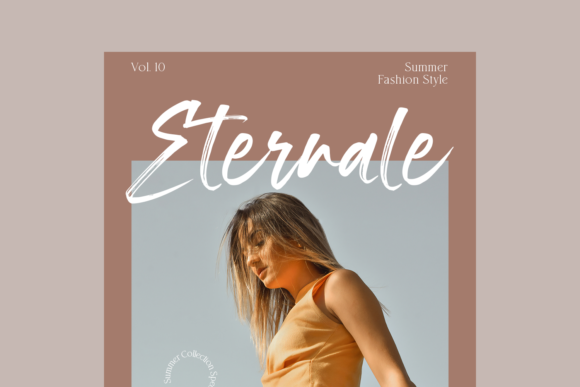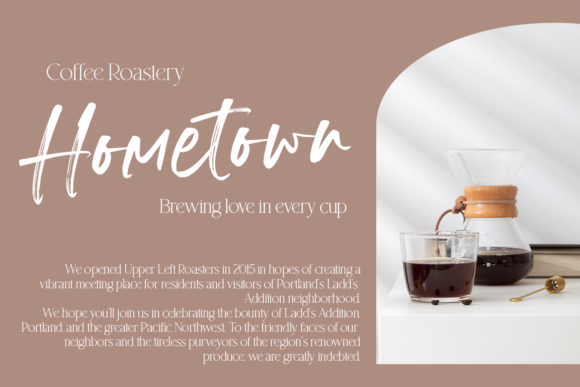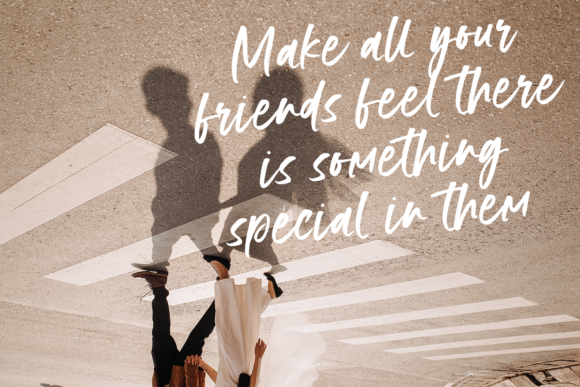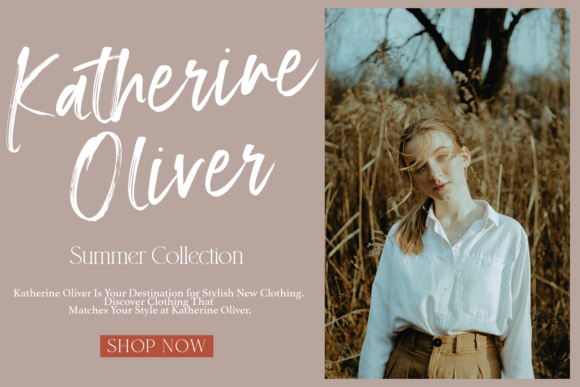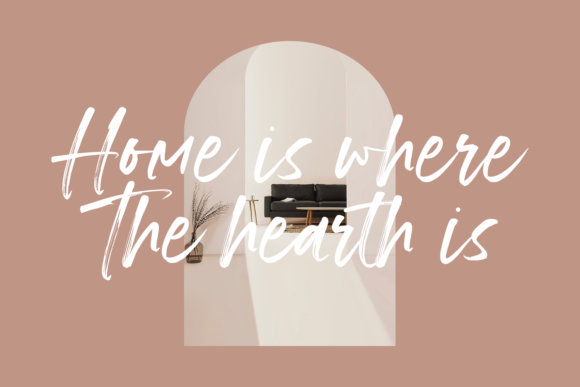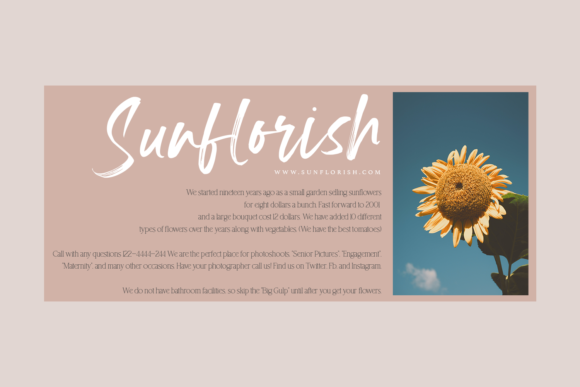
Introduction to Kindbold Font Font
Fonts play a crucial role in design, and the Kindbold Font font is a typeface that brings both character and versatility to any project. Whether you’re working on a branding project, a website, or a print design, the Kindbold Font font offers a unique style that can elevate your work.
Kindbold is a brushed handwritten font.
It maintains its classy calligraphic influences while feeling contemporary and fresh Fall in love with it and bring your projects to the highest levels.
Key Features of Kindbold Font Font
Why Choose Kindbold Font Font?
The Kindbold Font font is more than just a typeface – it’s a design tool that helps you communicate your message with style and clarity. Its unique character set and versatile design make it suitable for a wide range of applications, from elegant invitations to bold headlines.
With its carefully crafted letterforms and balanced proportions, the Kindbold Font font ensures readability and visual appeal across all mediums.
What makes Kindbold Font font special?
The Kindbold Font font stands out with its unique design, exceptional readability, and versatility across various design applications.